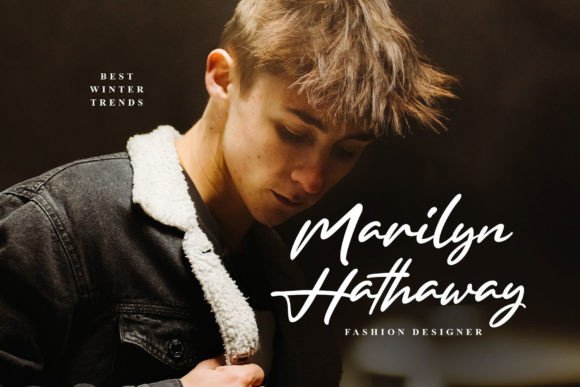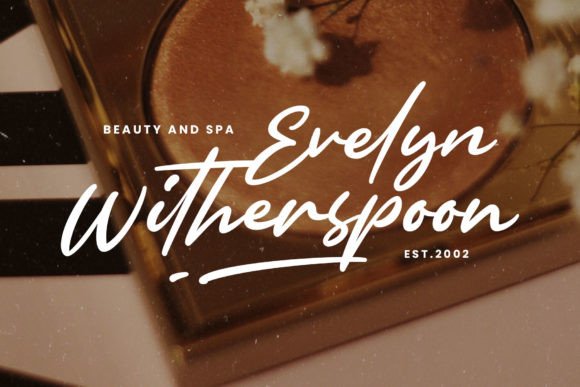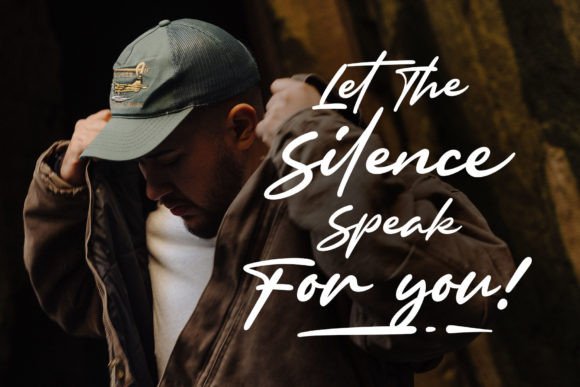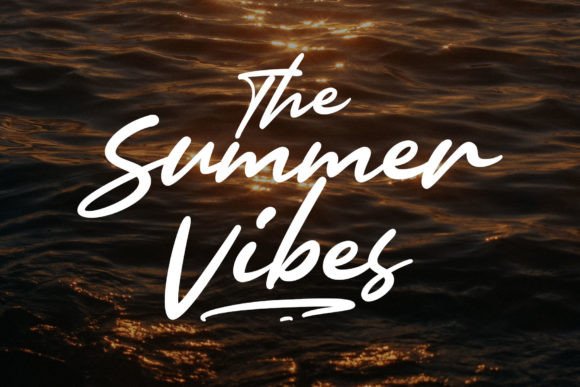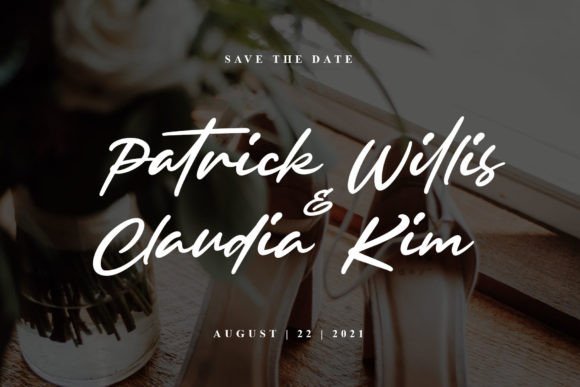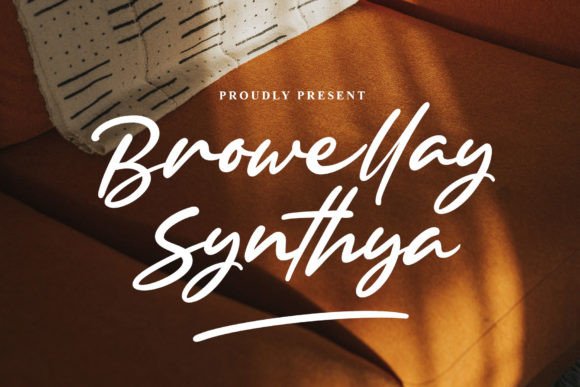
Browellay Synthya Font: Elevate Your Designs with Elegance and Sophistication
Are you tired of using the same old fonts in your designs? Look no further than Browellay Synthya, a stunning signature font that is sure to bring a touch of class and elegance to your projects. With its bold strokes and natural, handwriting-inspired aesthetic, Browellay Synthya is the perfect choice for designers and crafters looking to add a personal touch to their work.
The Perfect Display Font
Designed to make a statement, Browellay Synthya is a display font that is sure to turn heads. Its bold, expressive strokes are carefully crafted to capture the natural beauty of handwriting, giving your designs a unique and personal touch. Whether you’re working on a poster, flyer, or social media graphic, Browellay Synthya is the perfect choice for making a lasting impression.
One of the best things about Browellay Synthya is its versatility. This amazing font can be used in a wide range of projects, from posters and flyers to quotes, apparel, and logotypes. It’s also perfect for fashion and branding projects, as well as motion graphics, invitations, and weddings. The possibilities are truly endless with Browellay Synthya, and we can’t wait to see what you create!
What Sets Browellay Synthya Apart
So what makes Browellay Synthya so special? For starters, its unique blend of bold strokes and elegant lines gives it a truly distinctive look that is sure to stand out in any design. Additionally, its handwriting-inspired aesthetic gives it a personal, human touch that is hard to find in digital fonts. Whether you’re a professional designer or a crafty DIY enthusiast, Browellay Synthya is sure to become a favorite in your font collection.
Browellay Synthya is a font that is designed with both designers and crafters in mind. Its ease of use and flexibility make it perfect for professionals who need to create high-quality designs quickly and efficiently. At the same time, its affordability and accessibility make it a great choice for crafty DIY enthusiasts who want to add a personal touch to their projects.
Tips for Using Browellay Synthya
To get the most out of Browellay Synthya, here are a few tips to keep in mind:
- Use it as a display font to make a statement: Browellay Synthya is designed to be seen, so don’t be afraid to use it as a display font in your designs.
- Experiment with different colors and textures: Browellay Synthya looks great in a variety of colors and textures, so don’t be afraid to get creative and try out different combinations.
- Pair it with other fonts: Browellay Synthya pairs well with a variety of other fonts, so feel free to experiment with different combinations to find the one that works best for your design.
In conclusion, Browellay Synthya is an amazing font that is sure to bring a touch of elegance and sophistication to your designs. With its bold strokes, natural aesthetic, and endless creative possibilities, it’s the perfect choice for designers and crafters looking to add a personal touch to their work. So why wait? Download Browellay Synthya today and start elevating your designs to the next level!
Key Features of Browellay Synthya Font
- Expressive, classy, and elegant signature font
- Bold strokes for a statement-making display font
- Perfect for posters, flyers, quotes, apparel, logotypes, fashion, branding, motion graphics, invitations, weddings, and more
- Handwriting-inspired aesthetic for a personal touch
- Easy to use and flexible for designers and crafters